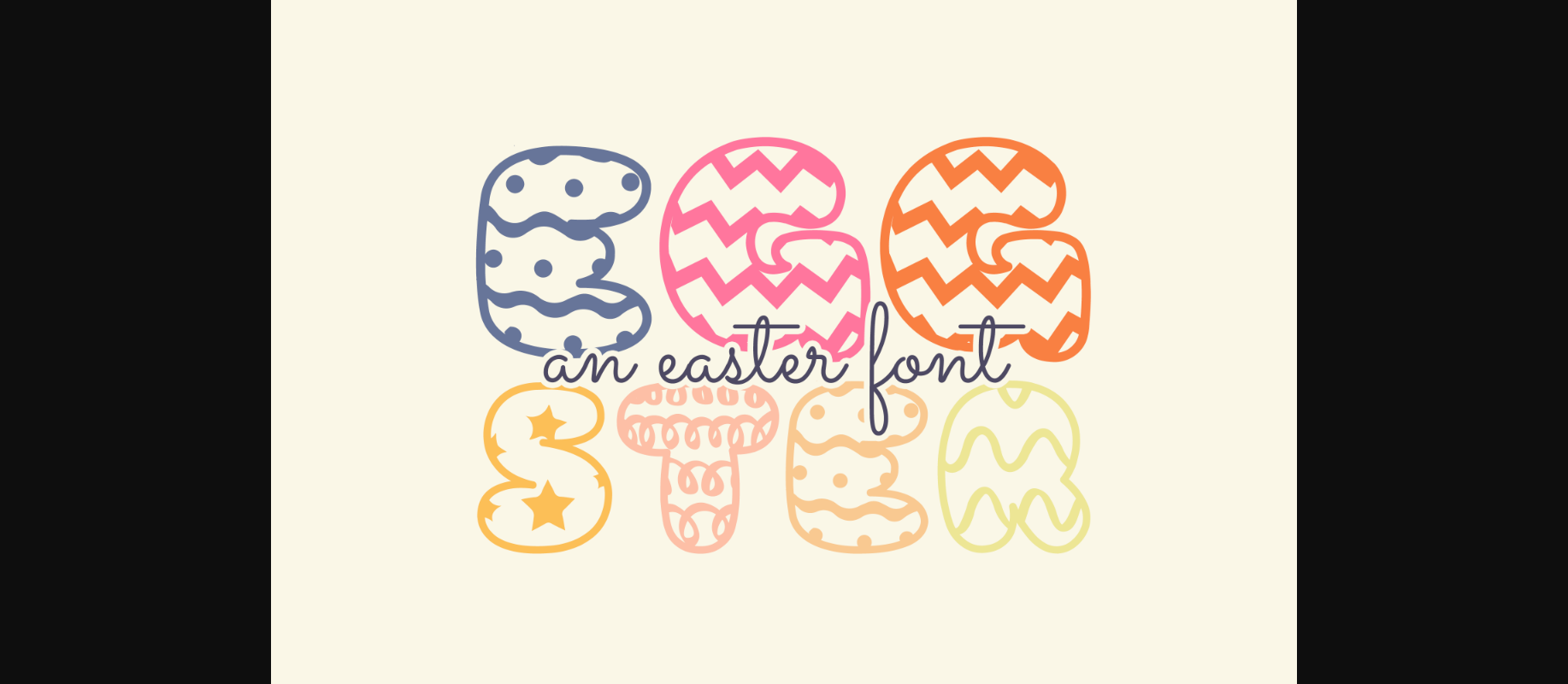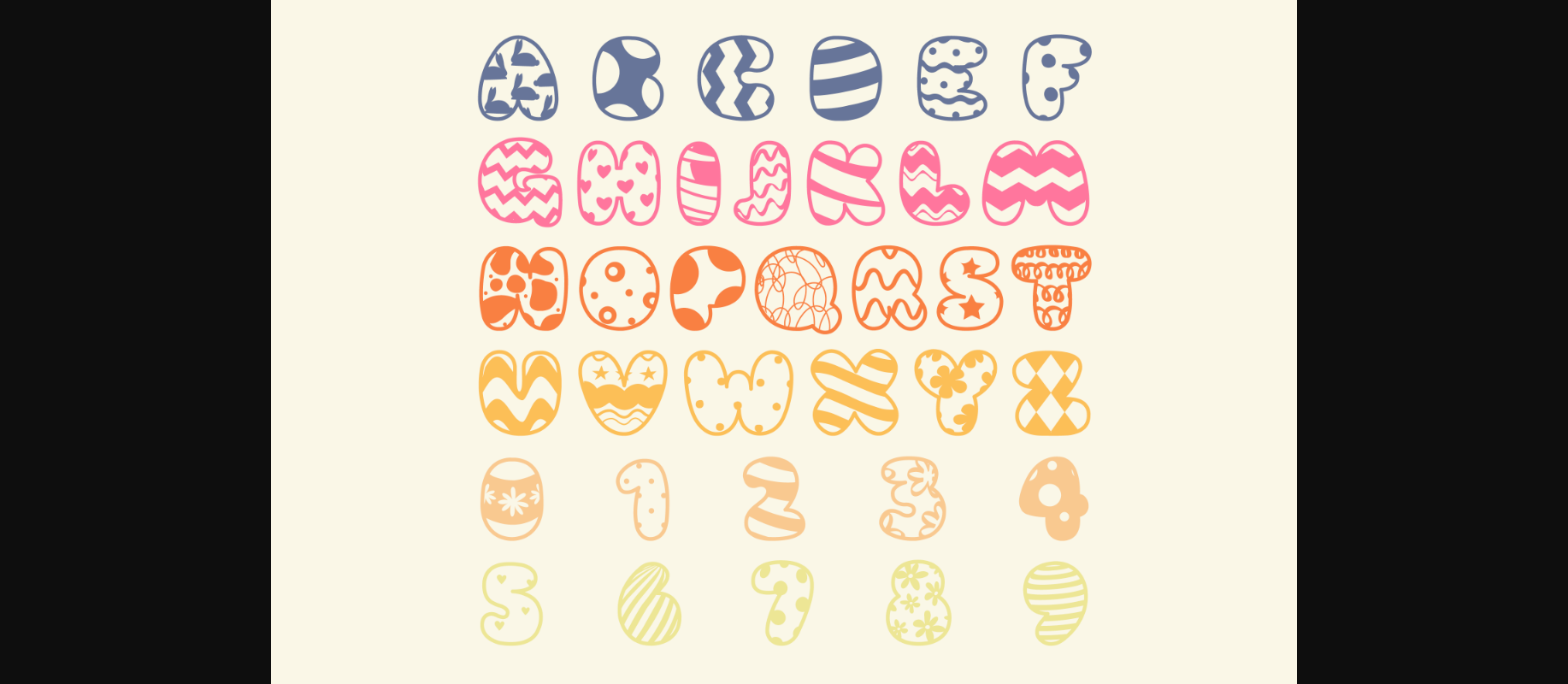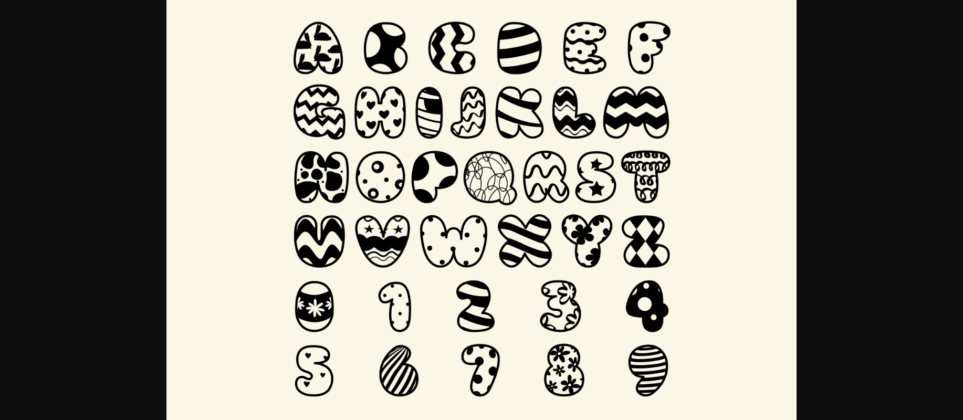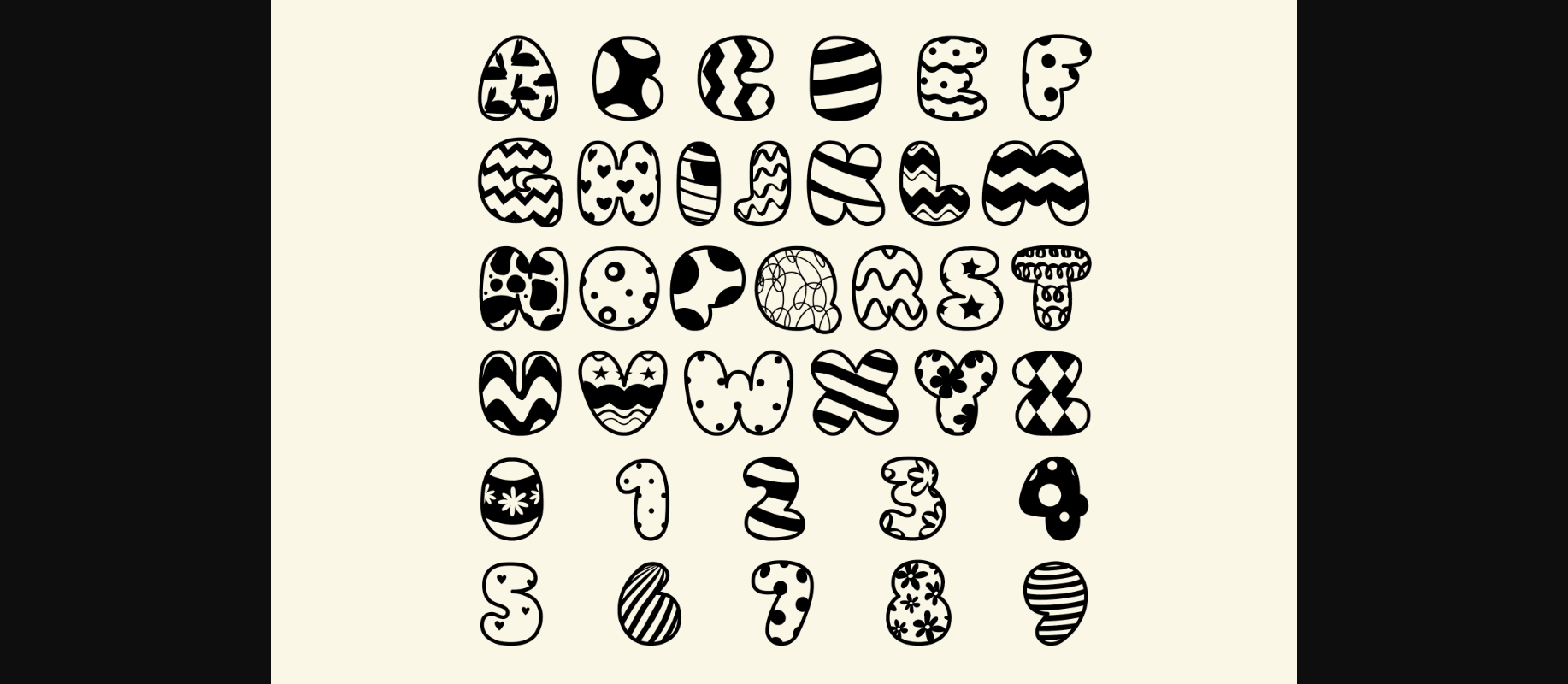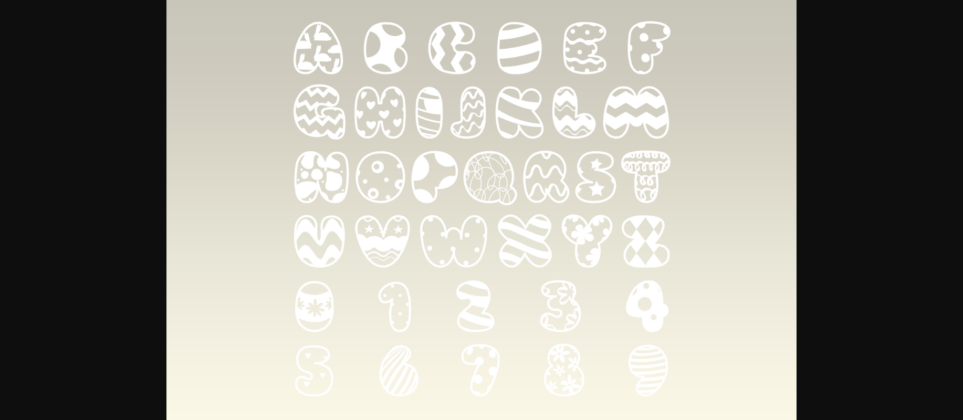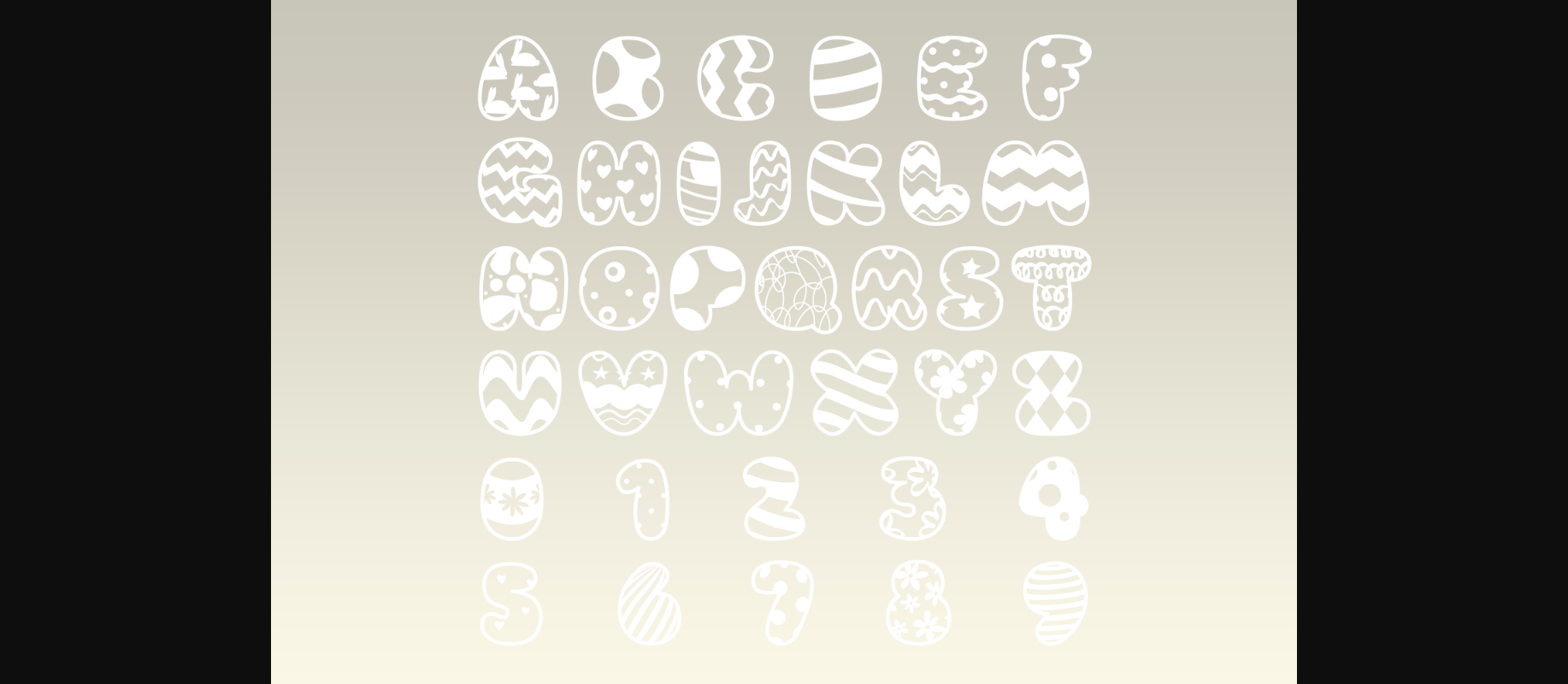
HomeDecorative FontsEggster Font Decorative Fonts Eggster Font FacebookXPinterestWhatsApp 1 of 6 ... Eggster Font Poster 2... Eggster Font Poster 3... Eggster Font Poster 4... Eggster Font Poster 5... Eggster Font Poster 6... About Eggster Font Eggster is an incredibly cool decorative font. Whether you use it for custom designs, DIY crafts, or just any creation that requires a lovely touch, this font will be an amazing choice. DOWNLOAD NOW People also explored Wednesday Night Font Enjoy the Talk Font Love Island Font Duo Esthetic Font Honiebi Font Winterland Font Kagetul Font Wave Road Font Brokkie Font 551 0 TagsEggsterEggster Font Previous articleVolgograd FontNext articleMister Boring Font LEAVE A REPLY Cancel reply Comment: Please enter your comment! Name:* Please enter your name here Email:* You have entered an incorrect email address! Please enter your email address here Website: Save my name, email, and website in this browser for the next time I comment. Personal Use Free Hatia Script Personal Use Free Read more about this font Adelaide Personal Use Free Read more about this font Cute Messy Personal Use Free Read more about this font Kitsor Rauttie Personal Use Free Read more about this font BLOG Free Fonts Risk: Why Free Fonts Can Be Dangerous for Designers Free Fonts Risk: Why Free Fonts Can Be Dangerous for Designers Using free fonts is a common practice in web and graphic design. However, the... 5 Fonts That Will Dominate Design Trends in 2026 Top 7 Google Fonts Alternatives for Faster and Privacy-Friendly Web Design (2025) Top 10 Handwritten Fonts That Elevate Your Designs